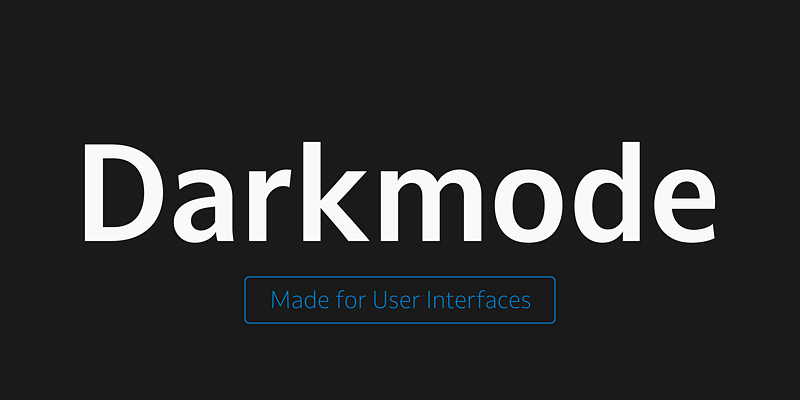
Darkmode CC Font Free Download is a sleek, futuristic sans-serif typeface designed with digital environments and tech aesthetics in mind. Featuring clean lines, geometric shapes, and a minimalist structure, Darkmode is perfect for UI design, app interfaces, gaming graphics, tech branding, and any project that needs a modern, high-contrast typeface optimized for screen use—especially in dark-themed designs.
Darkmode CC Font balances style and readability, making it ideal for both headings and functional text in digital layouts. It stands out in low-light conditions while maintaining clarity and modern sophistication.